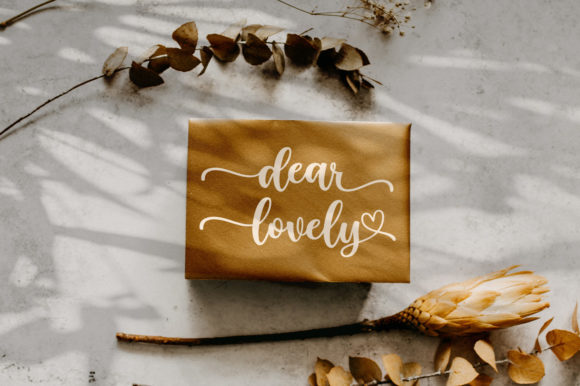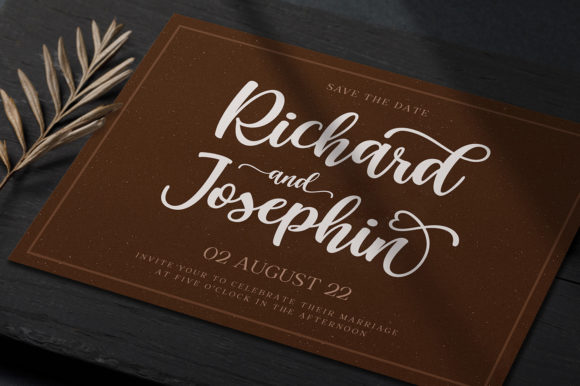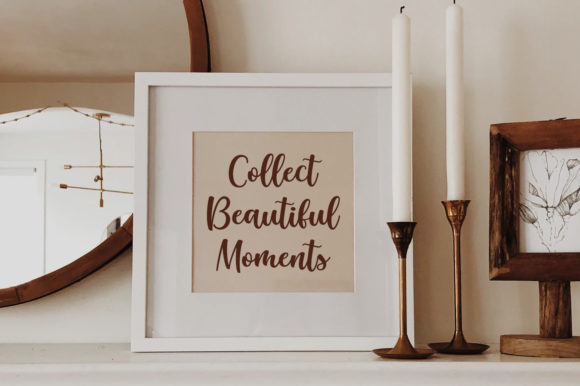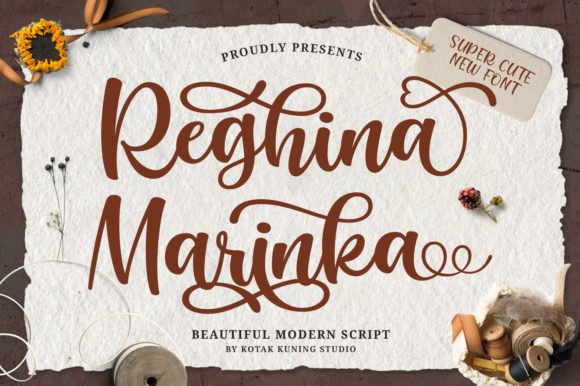
Introduction to Reghina Marinka Font
Reghina Marinka is an elegant script font with a contemporary atmosphere and impeccable form, inspired by timeless classic calligraphy.
Not too thin and not too thick, balanced and varied, this font was designed to enhance the beauty of your projects .
Key Features of Reghina Marinka Font
Why Choose Reghina Marinka Font?
Reghina Marinka Font offers exceptional quality and versatility, making it a valuable addition to your design toolkit. Whether you’re creating for personal projects or commercial use, Reghina Marinka Font delivers professional results.